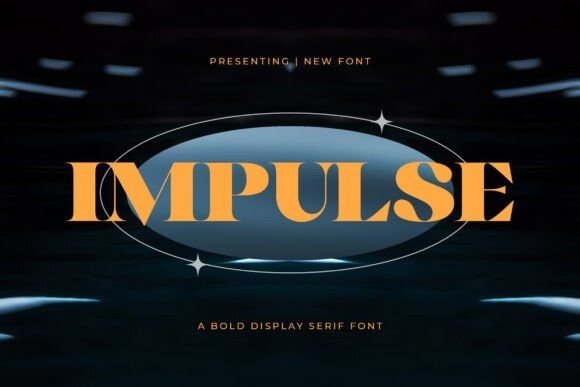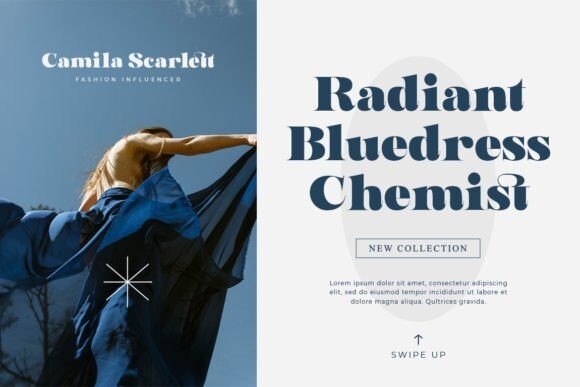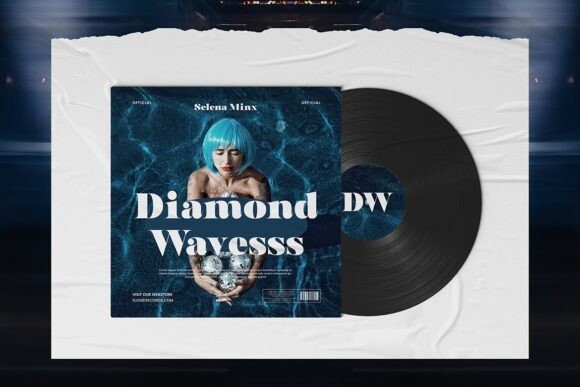
Impulse Font
Looking for a font that’s bold, daring, and sure to make an impact? Look no further than Impulse – a bold display serif font that’s perfect for making a statement.
With its thick, powerful letterforms and strong serifs, Impulse is a font that exudes confidence and authority. It’s perfect for use in headlines, titles, logos, and other text that needs to stand out and make an impression.
Each letter is designed to be thick and weighty, while the serifs add an extra level of sophistication and refinement. And with its versatility and adaptability, Impulse can be used in a wide range of creative projects, from packaging design to advertising to web design.